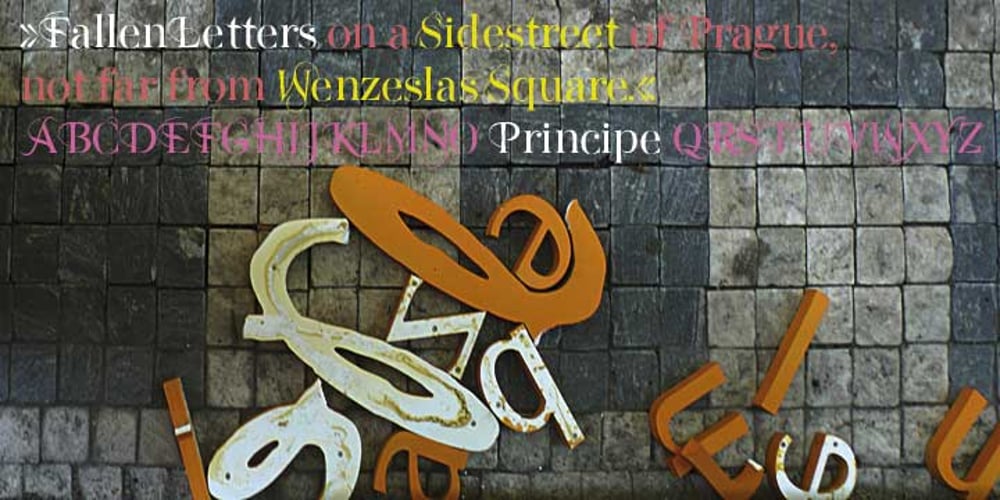
Principe
Principe font
Principe Font Family was designed by Gert Wiescher and published by Wiescher Design. Principe contains 4 styles and family package options. Principe is the Bodonian idea driven to the limit by abolishing most of the hairlines! The shape is completed only by the eye of the reader. This gives room for elegant embellishments and makes for a surprisingly new look to this modern Antiqua typeface. Another unusual typeface by your designer of elegant fonts, Gert Wiescher.